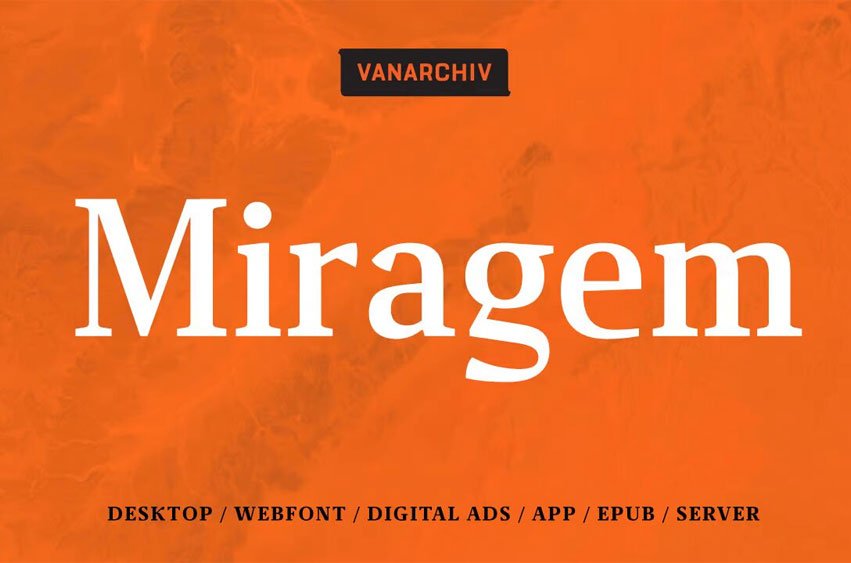
Miragem Font is serif typeface was designed to be simple and neutral in text sizes. The descender proportions are short, and the x-height is large.
The lowercase italics contain a different structure from Roman characters, but the most distinctive detail is that the ascender and descender strokes don’t contain serifs. Italic characters are slightly more narrow and condensed than Roman letterforms.